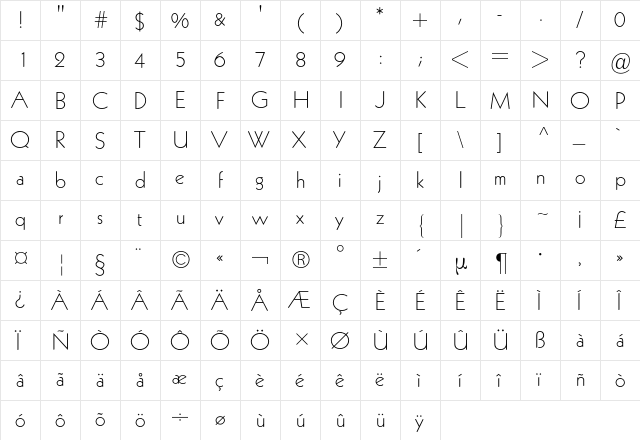
Kabel BQ Regular
Design Context for Kabel BQ Typeface
Kabel BQ offers clean, dependable letterforms without strong stylistic allegiance, making it a practical choice for designers who need flexibility.